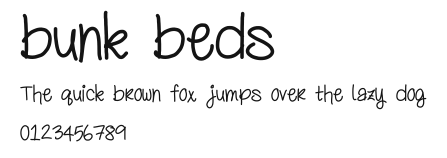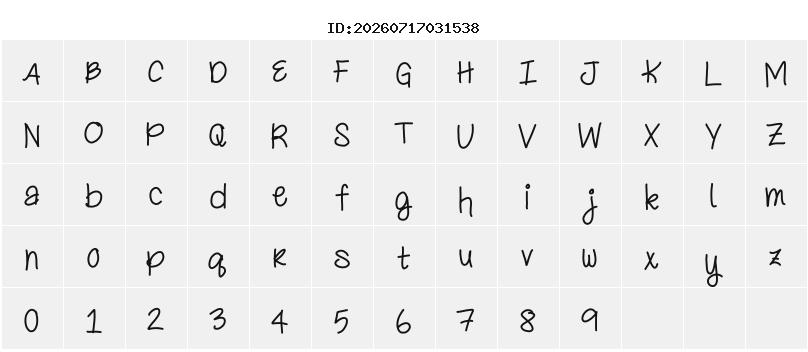
bunk beds .ttf is a modern, elegant sans-serif font designed for ultimate readability and visual harmony. Perfect for branding, headlines, web design, and print materials.